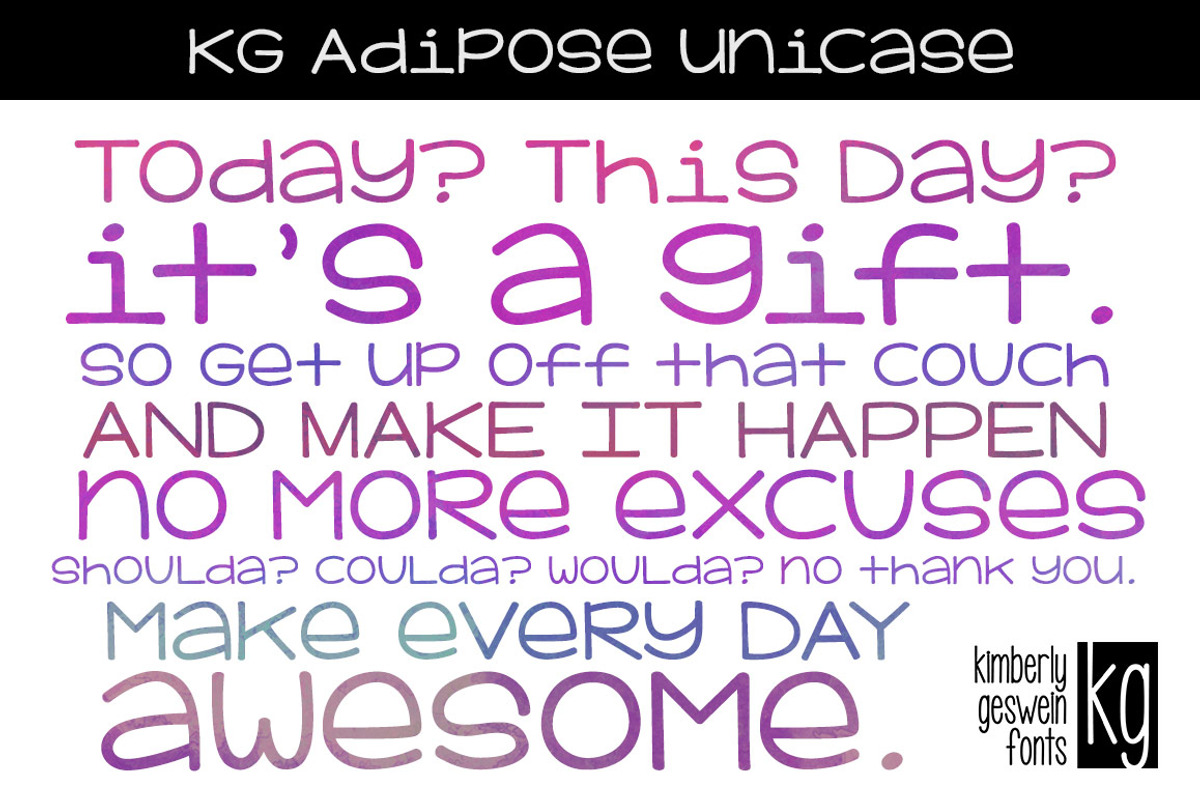
KG Adipose Unicase
KG Adipose Unicase by Kimberly Geswein Fonts is a font selected for branding, posters, packaging, typography.
KG Adipose Unicase by Kimberly Geswein Fonts fits naturally into Branding, posters, packaging, typography.